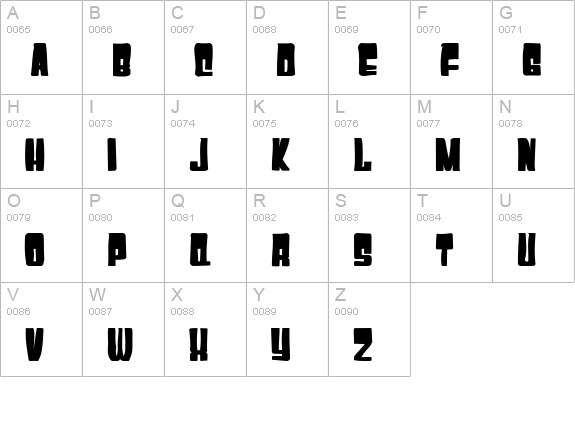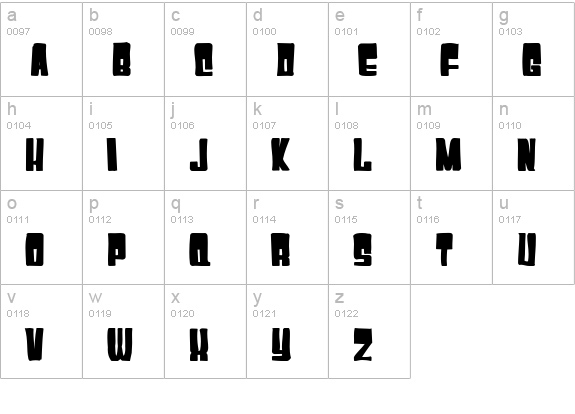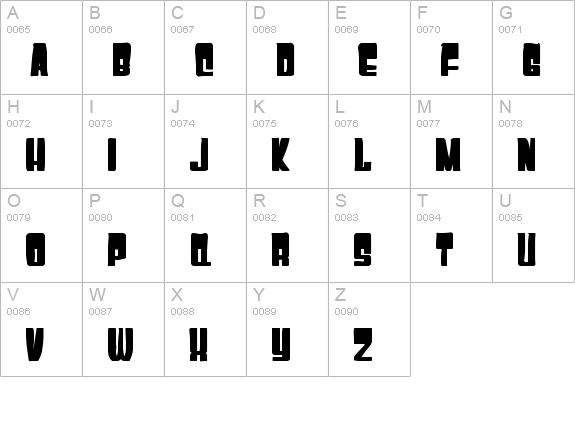
Gyparody Ink Font Details
Gyparody Ink font is a unique and eye-catching typeface that exudes creativity and playfulness. With its quirky, hand-drawn style and irregular brush strokes, this font is perfect for adding a touch of whimsy to your projects. Whether you're designing posters, invitations, or social media graphics, Gyparody Ink will surely make your text stand out. What's even better is that Gyparody Ink is completely free to download at FontsMarket.com. Yes, you read that right - this charming font can be yours at no cost! So why wait? Go ahead and grab Gyparody Ink today to add a fun and artistic flair to your designs.